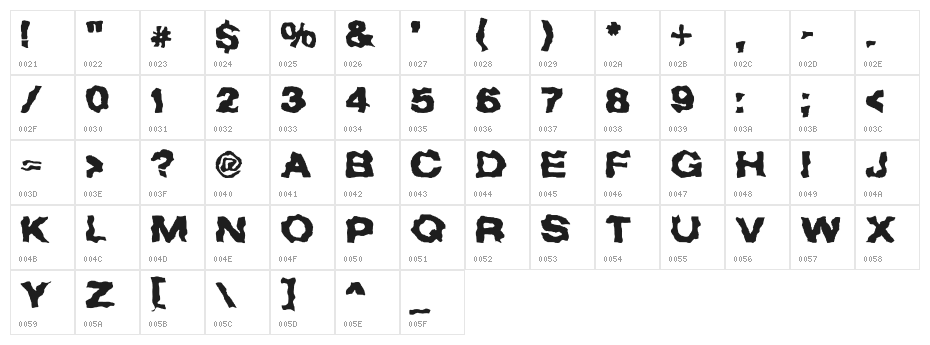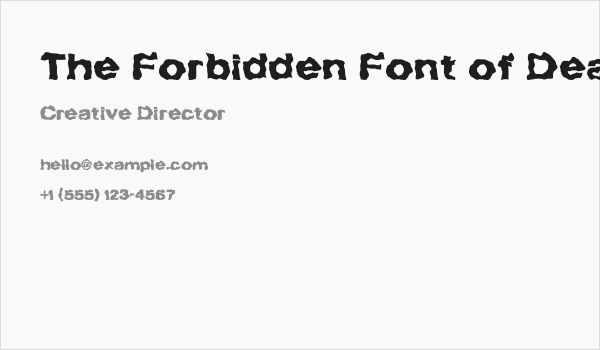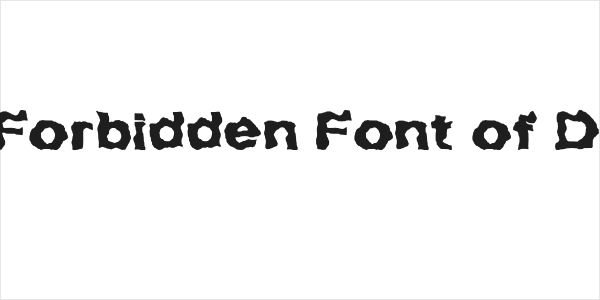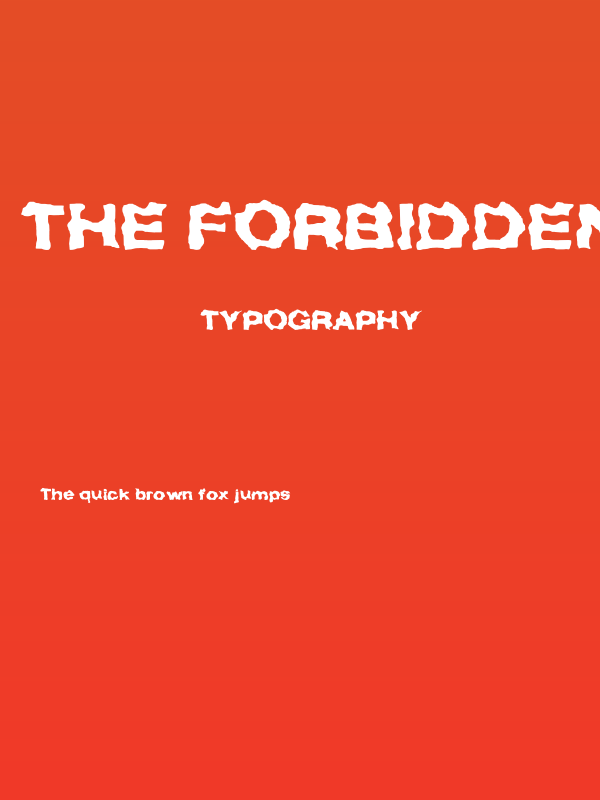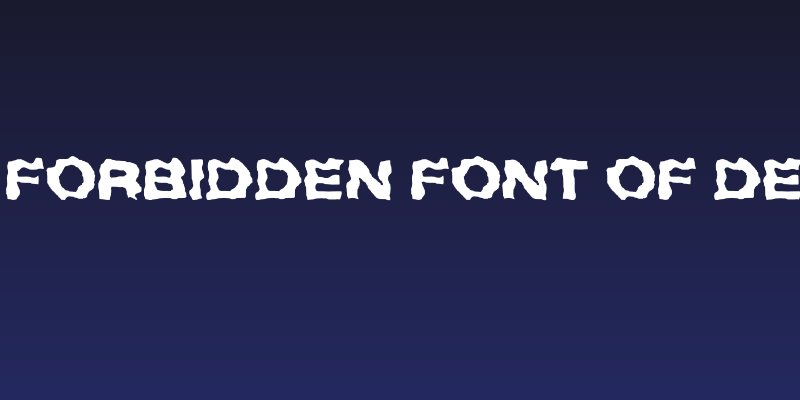
The Forbidden Font of Death Font
The Forbidden Font of Death Description
This font features a rugged, distressed appearance, reminiscent of decaying or eroded surfaces. The characters are bold and irregular, with jagged edges and varying thickness, creating a chaotic and intense visual impact. The uppercase and lowercase letters maintain a consistent style, with each character appearing unique due to the uneven texture. Numbers and special characters follow the same design, enhancing the font's cohesive yet unpredictable aesthetic. This font is ideal for projects that require a dramatic and edgy look, such as horror-themed designs or rebellious branding.
| Proposed Projects | Ideal for horror-themed designs, rebellious branding, or any project needing a dramatic, edgy look. |